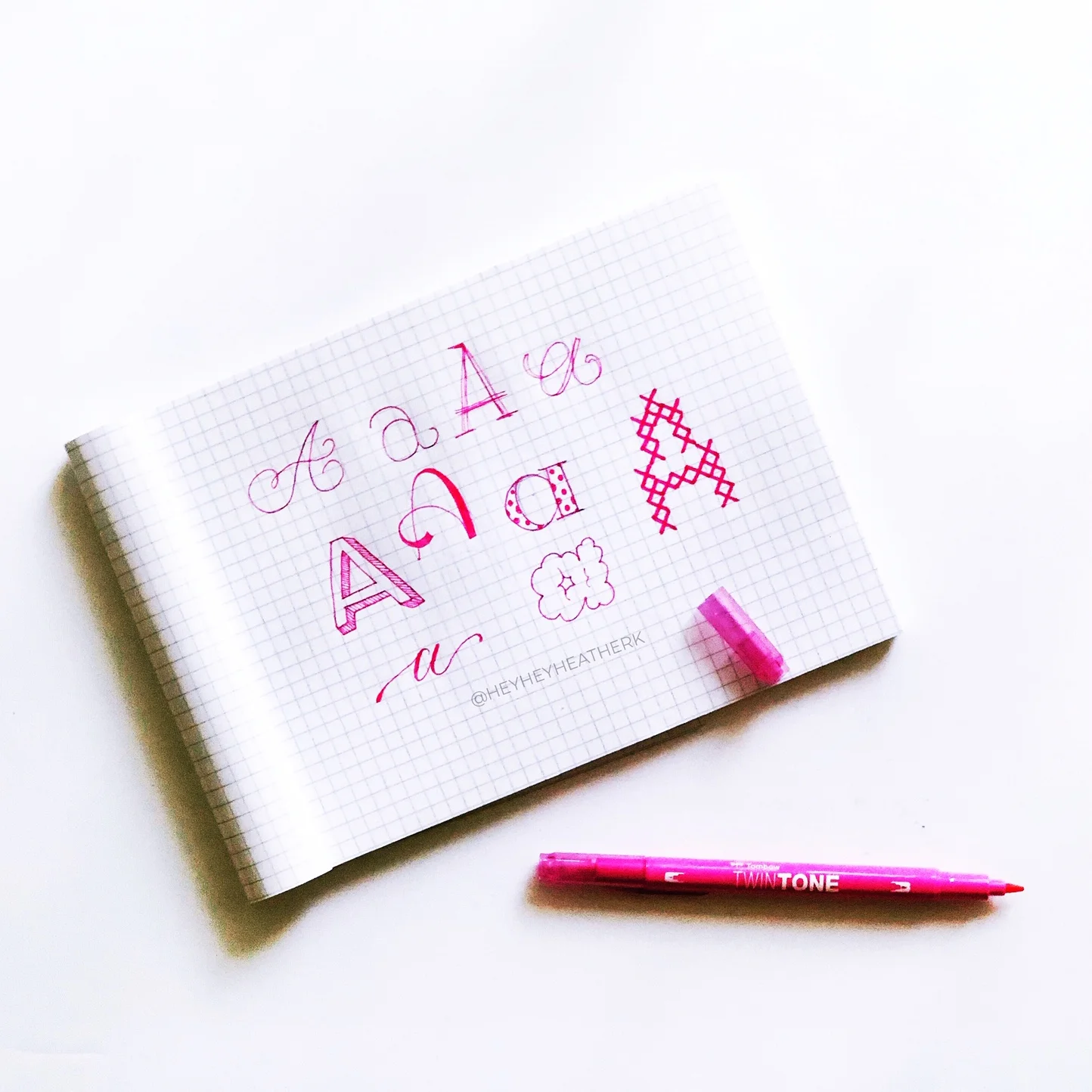
Member Feature: Heather Kopf
We are excited to introduce you to SSLetters member Heather Kopf! Heather has been joining us for meetings over the last year, and we love the positive vibes she brings with her. Get to know Heather and her lettering in this month’s member profile, and meet her IRL as she hosts our September doodle session!
How did you discover hand lettering?
I’ve kind of done a version of it since I was little, playing around with letter forms. But I started seeing it more and more on social media early 2016 and decided it might be a fun focus, so I jumped right on in!
How long have you been hand lettering?
Officially, since mid 2016.
Describe your hand lettering style.
Ooh, that’s a good question. If we’re going with my base style I’d say it’s a modified calligraphy style. It’s a little more bouncy, includes some mixed script, less formal, etc.
What are your favorite tools to hand letter with and ways to display hand lettering?
I love going back to the beginning and using a good old pencil and paper to jot some ideas, practice some styles, etc. I usually use an H drafting pencil for sketching my piece first. I of course also love my Tombow Fudenosuke pens because they’re so durable, as well as Marvy Uchida Le Plume pens, and Rhodia pads. For digital I go with my iPad and Procreate, particularly if I’m doing any foil prints. Those are my favorite ways to display, there’s something just so delicate and lovely about a foil print!
What inspires your lettering?
My mental health. I tend to letter supportive messages when I’m in a funk or don’t know what else to write. Additionally, I’d say something I’ve experienced whether it’s something someone said at work, a podcast, a tv show or a movie. I will jot it down on my phone to work on later!
Do you have any hand lettering projects that you're working on?
I started “Calligraphy for Mental Health” last year. It’s a passion project that’s turned into workshops to teach others the positive effects of hand lettering and calligraphy on our mental health. It’s been something that has allowed me to talk about my own struggles and released me from shame about my anxiety, as well as allowed me to share my joy of lettering and how it’s helped me tremendously!
What is your favorite letter, number or character to letter?
I’m biased for the H. I love the idea that in a written font it can be very rigid with straight lines to something super curly and delicate.
What is your most challenging letter, number or character to letter?
S’s. I don’t know what it is, but for some reason I find S’s are one of my most erased and redrawn when I’m sketching.